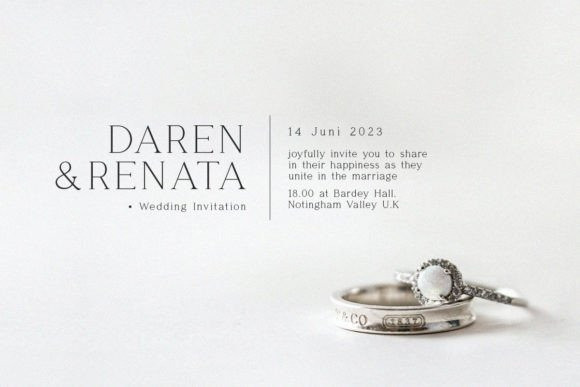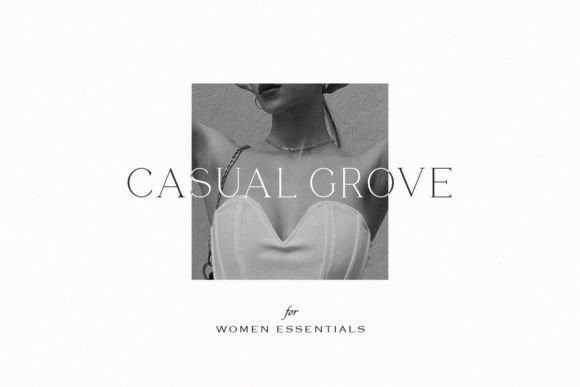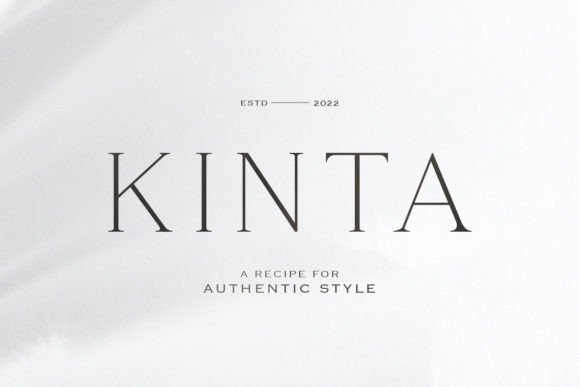
Kinta Font
Kinta Font – serif with an elegant authentic style. This font is good for your minimalist and classy design. So don’t wait, make it your font of choice today, and take your designs to the next level!